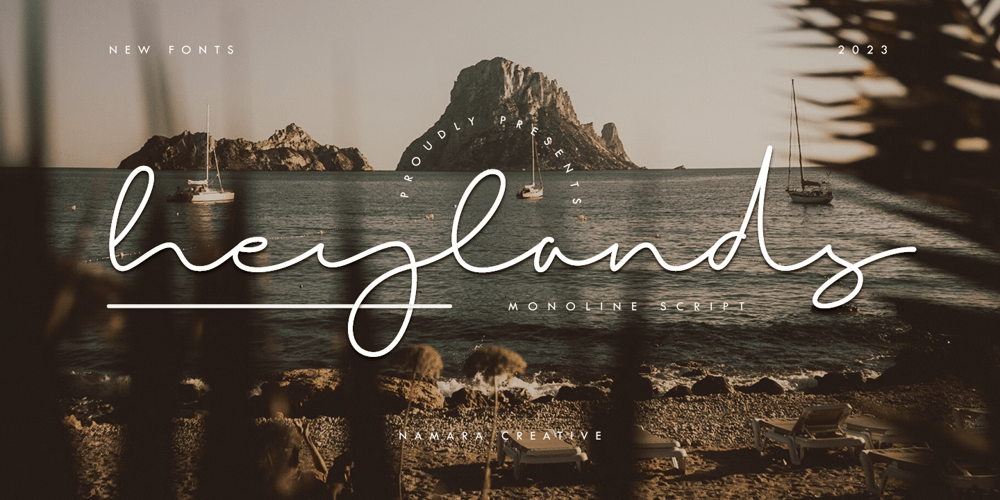
Heylands Font Family was designed by Eep Apringga and published by Namara Creative Studio. Heylands contains 1 styles and family package options. A monoline handwritten script gives a clean and modern look with a natural & stylish flow. an incredible addition to your font library. This font is perfect for creating branding logos, typography quotes, greeting cards, wedding invitations, and more.Thanks and have a wonderful day.